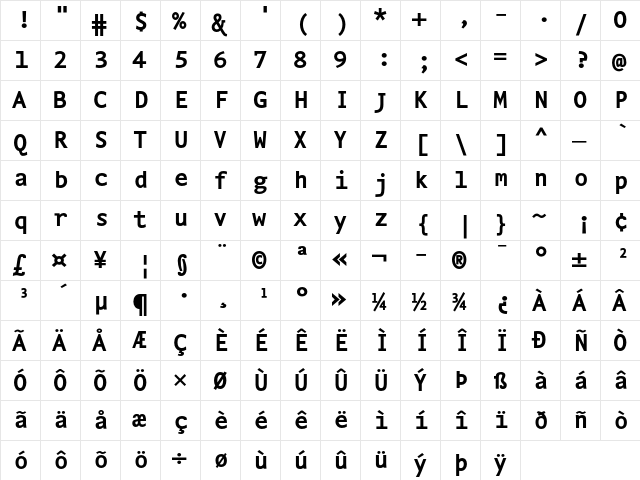
NexusTypewriterTF-Bold Regular
NexusTypewriterTF-Bold brings the precise, column-aligned rhythm of monospaced typography to designs that value technical clarity and systematic order. The heavy weight commands attention and anchors typographic hierarchies.
A natural fit for code editors, technical documentation, developer-focused branding, and terminal-inspired UI.
Pro Tip: Pair NexusTypewriterTF-Bold with a proportional sans for UI contexts where code-style labels and regular body copy need to coexist.